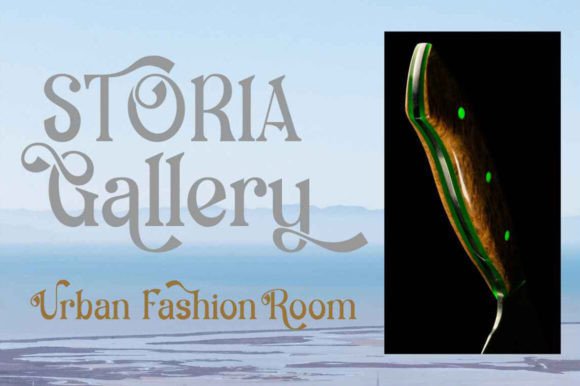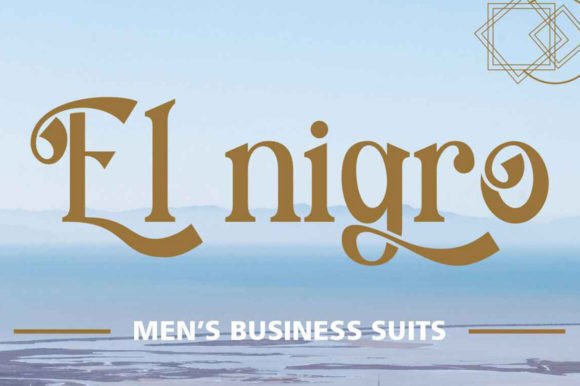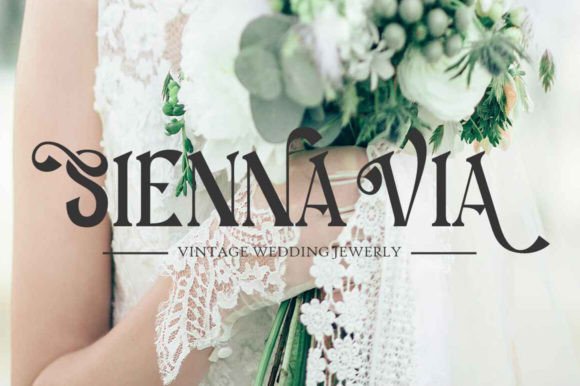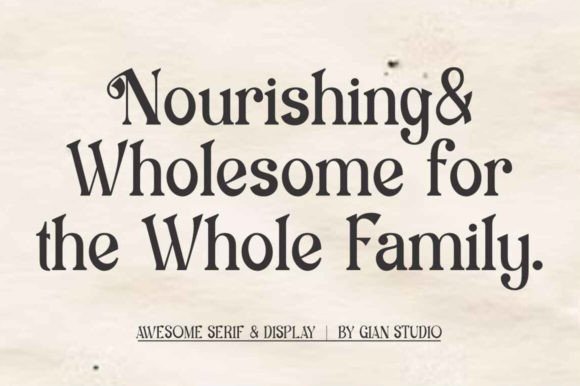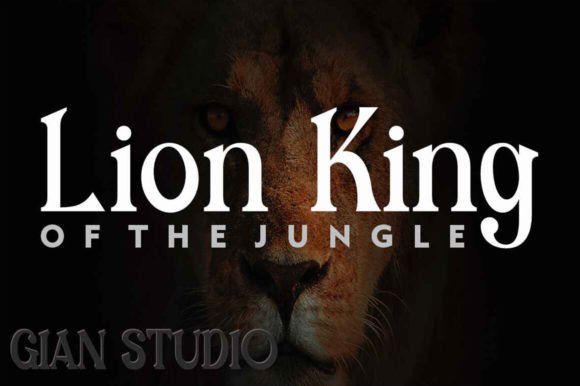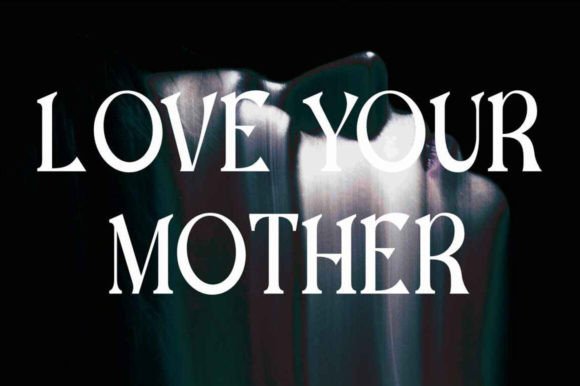
Marlborough Font – Free Download
Introduction to Marlborough Font
Introducing ‘Marlborough’ – a stunning typeface that combines the sleek and exotic characteristics of a serif font with beautifully crafted ligatures, making it an ideal choice for creating elegant and sophisticated designs.
Key Features of Marlborough Font
Why Choose Marlborough Font?
Marlborough Font offers exceptional quality and versatility, making it a valuable addition to your design toolkit. Whether you’re creating for personal projects or commercial use, Marlborough Font delivers professional results.